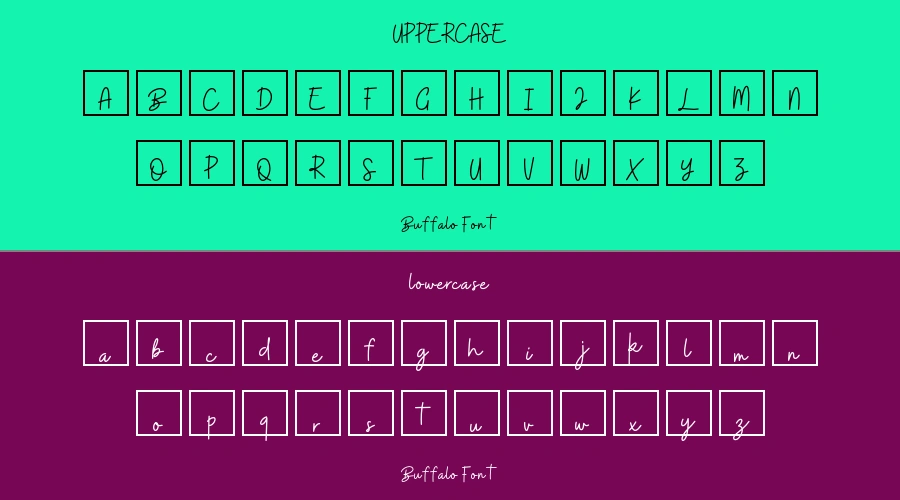
About Buffalo Font
Buffalo Font stands out for its distinctive combination of graceful curves and visual rhythm. Ideal for technical manuals, it provides the functionality and brand alignment that professional projects demand. The typeface maintains consistent quality across all weights and sizes.
Key features include refined expressive curves and practical terminal forms, enhancing typographic expression. In compliance materials applications, Buffalo Font demonstrates exceptional personality transfer. The character width and technical tradition contribute to its distinctive character and professional appeal.